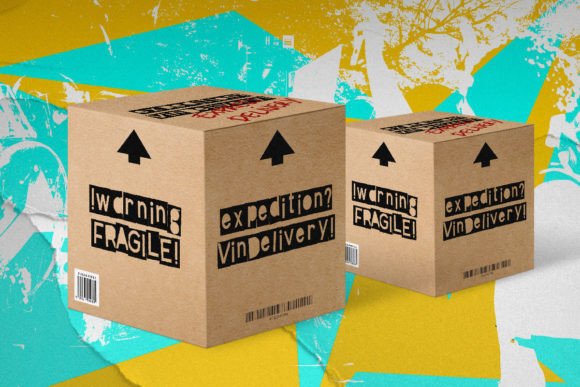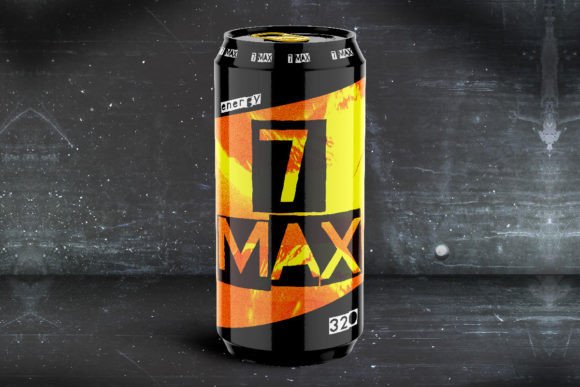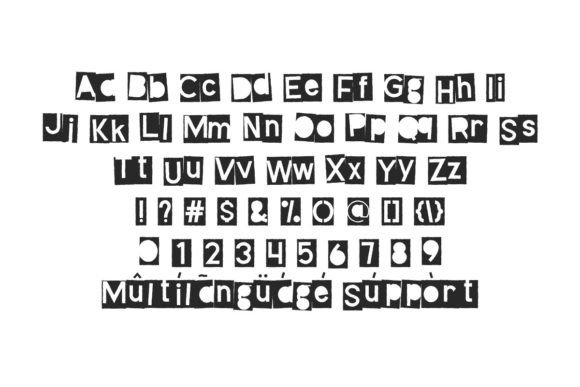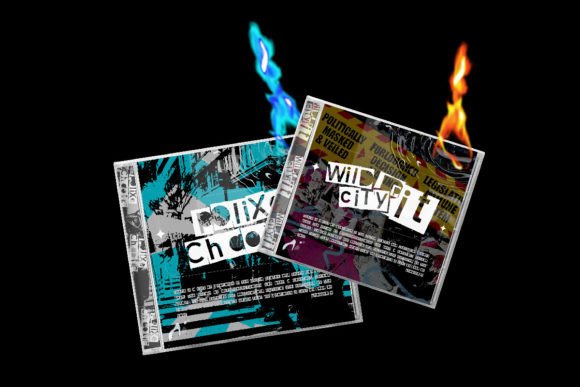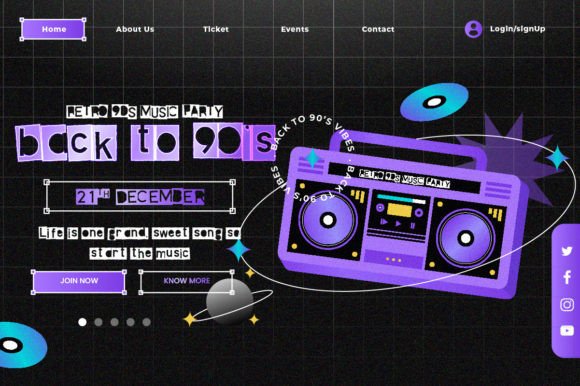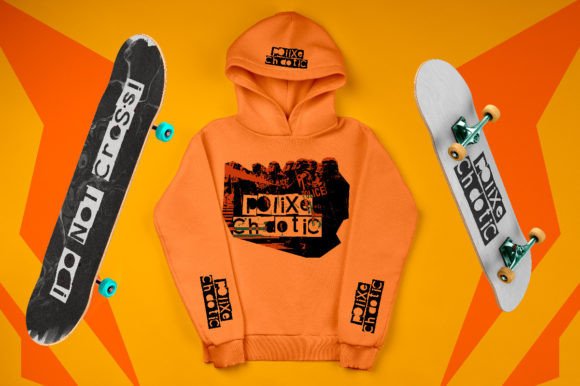
Introducing All The Box Font: The Ultimate Display Font for Designers and Crafters
Are you tired of using the same old fonts in your designs? Do you want to add a touch of uniqueness and personality to your projects? Look no further than All The Box Font, a fun and quirky display font that’s perfect for designers and crafters alike. In this article, we’ll dive into the world of All The Box Font, exploring its inspiration, features, and uses, as well as provide tips and ideas for incorporating it into your designs.
The Inspiration Behind All The Box Font
All The Box Font was originally inspired by retro vintage music vibes, with a unique style that keeps all the letters in an irregular box. This distinctive design gives the font a magazine scrapbook style that’s sure to turn heads. The font’s creator was inspired by the eclectic and playful aesthetic of vintage music, and sought to capture that same energy and spirit in a font that would be both fun and functional.
Key Features of All The Box Font
So what sets All The Box Font apart from other display fonts on the market? Here are just a few of its key features:
- Unique irregular box design: Each letter is carefully crafted to fit within an irregular box, giving the font its distinctive look and feel.
- Magazine scrapbook style: The font’s design is reminiscent of vintage music magazines and scrapbooks, adding a touch of nostalgia and whimsy to your designs.
- Easily readable: Despite its unique design, All The Box Font is still easy to read, making it perfect for use in a variety of design projects.
- Fun and playful: This font is perfect for designers and crafters who want to add a touch of personality and whimsy to their work.
Uses for All The Box Font
All The Box Font is a versatile display font that can be used in a wide range of design projects, including:
- Signs and posters: Use All The Box Font to create eye-catching signs and posters that are sure to grab attention.
- Social media graphics: Add a touch of personality to your social media graphics with this fun and quirky font.
- Invitations and cards: Use All The Box Font to create unique and eye-catching invitations and cards for special occasions.
- Crafting projects: This font is perfect for crafters who want to add a personal touch to their projects, such as scrapbooking, journaling, and more.
Tips for Using All The Box Font
Here are a few tips for getting the most out of All The Box Font:
- Use it sparingly: Because of its unique design, All The Box Font can be overwhelming if used too much. Use it sparingly to add emphasis and interest to your designs.
- Pair it with other fonts: Experiment with pairing All The Box Font with other fonts to create a unique and visually interesting design.
- Experiment with colors and textures: Don’t be afraid to get creative with colors and textures when using All The Box Font. This font looks great with bold colors and textures that add depth and interest to your designs.
All The Box Font is a fun and quirky display font that’s perfect for designers and crafters who want to add a touch of personality and whimsy to their work. With its unique irregular box design, magazine scrapbook style, and easily readable letters, this font is sure to turn heads. Whether you’re creating signs and posters, social media graphics, invitations and cards, or crafting projects, All The Box Font is a great choice. So why not give it a try and see how it can add a touch of excitement to your designs?
In conclusion, All The Box Font is a great addition to any designer’s or crafter’s toolkit. Its unique design, versatility, and ease of use make it a font that’s sure to inspire creativity and add a touch of personality to your work.